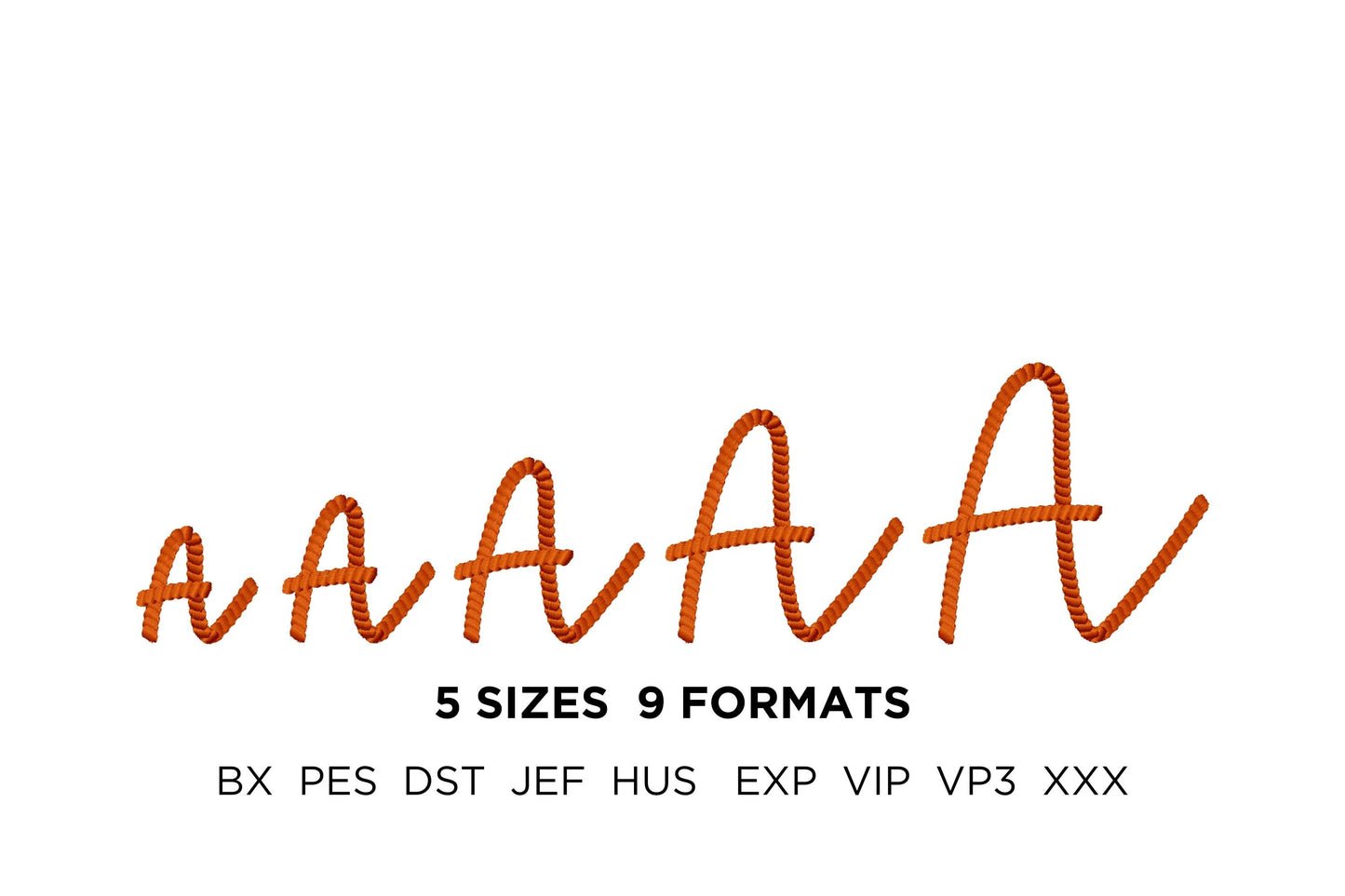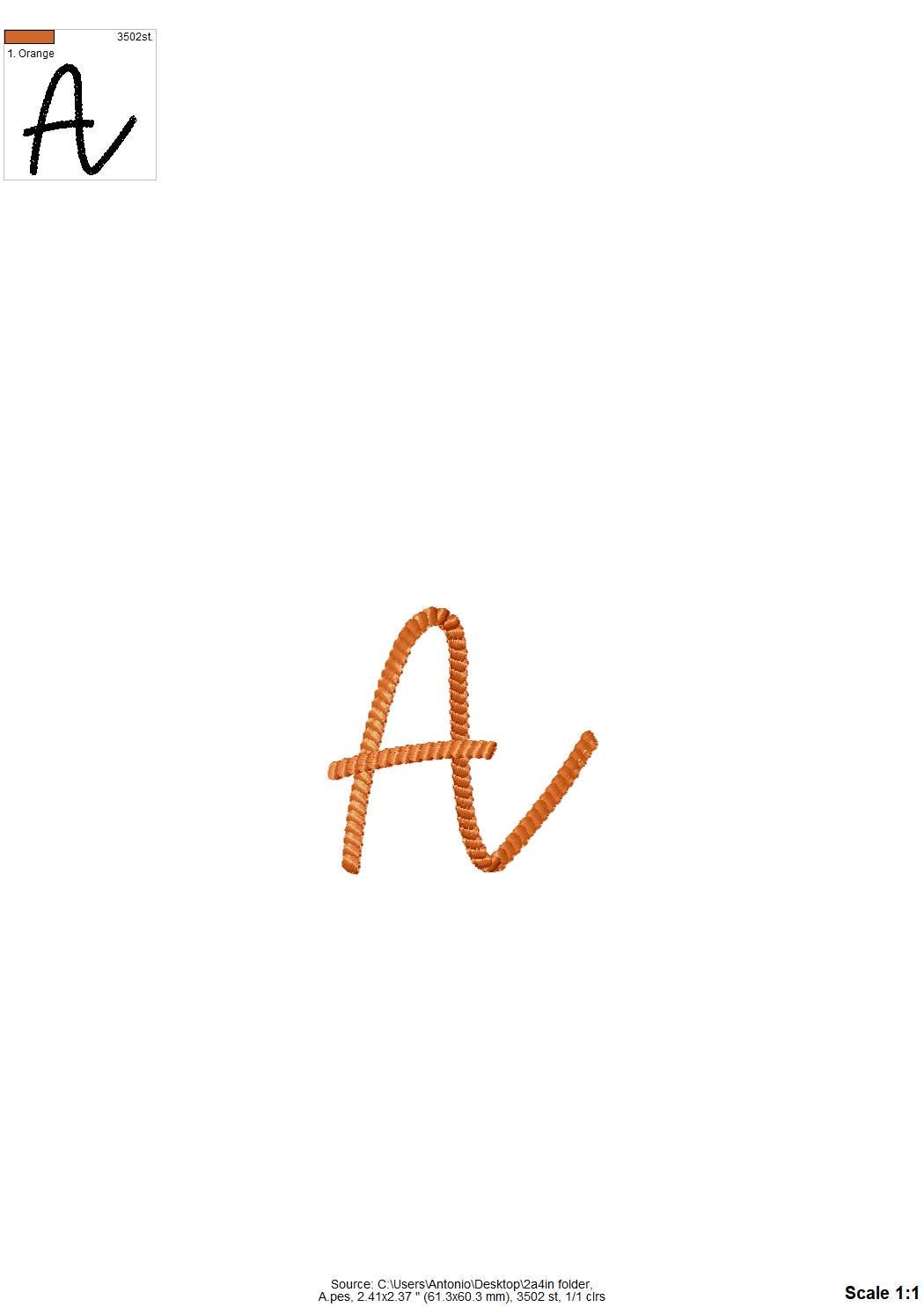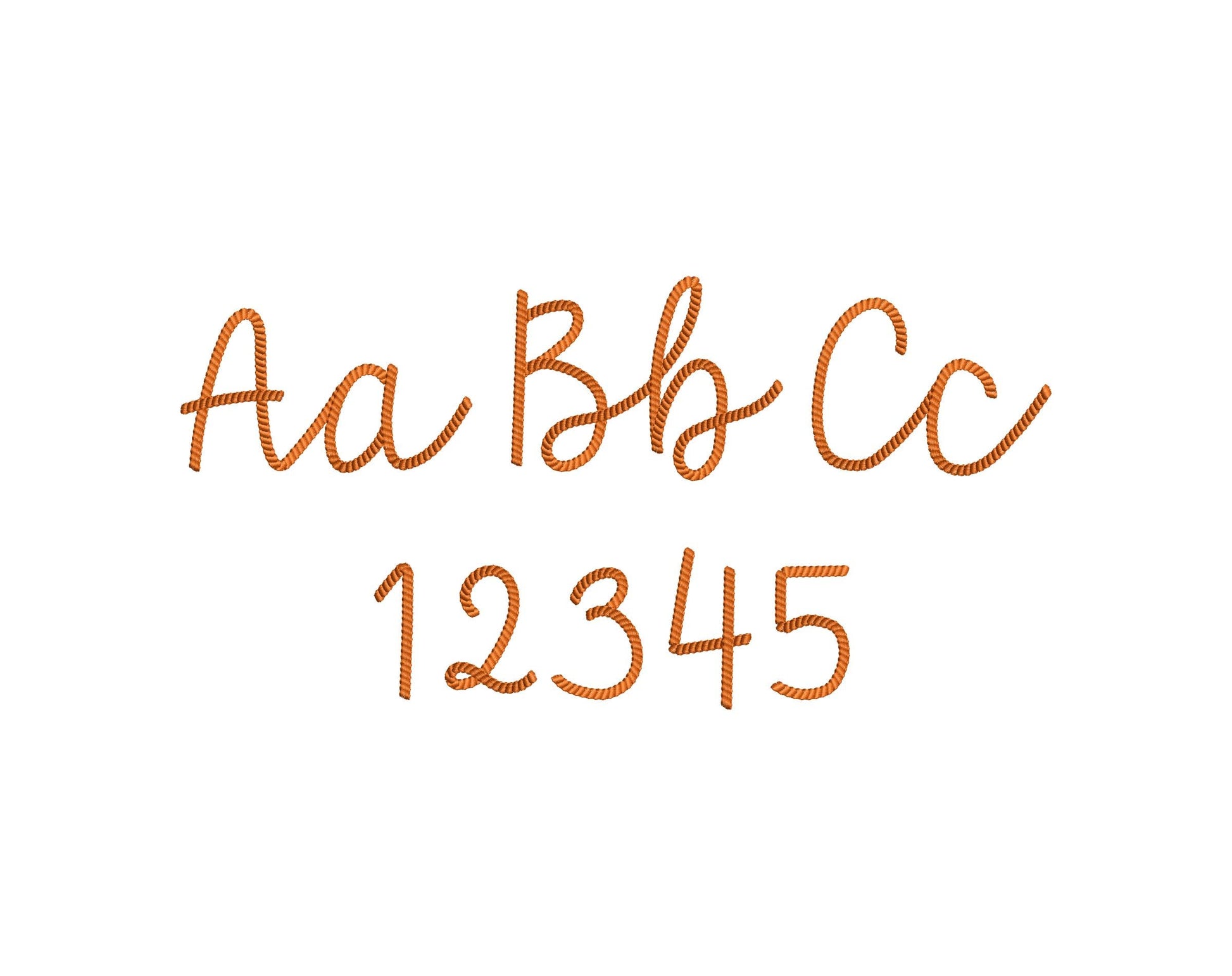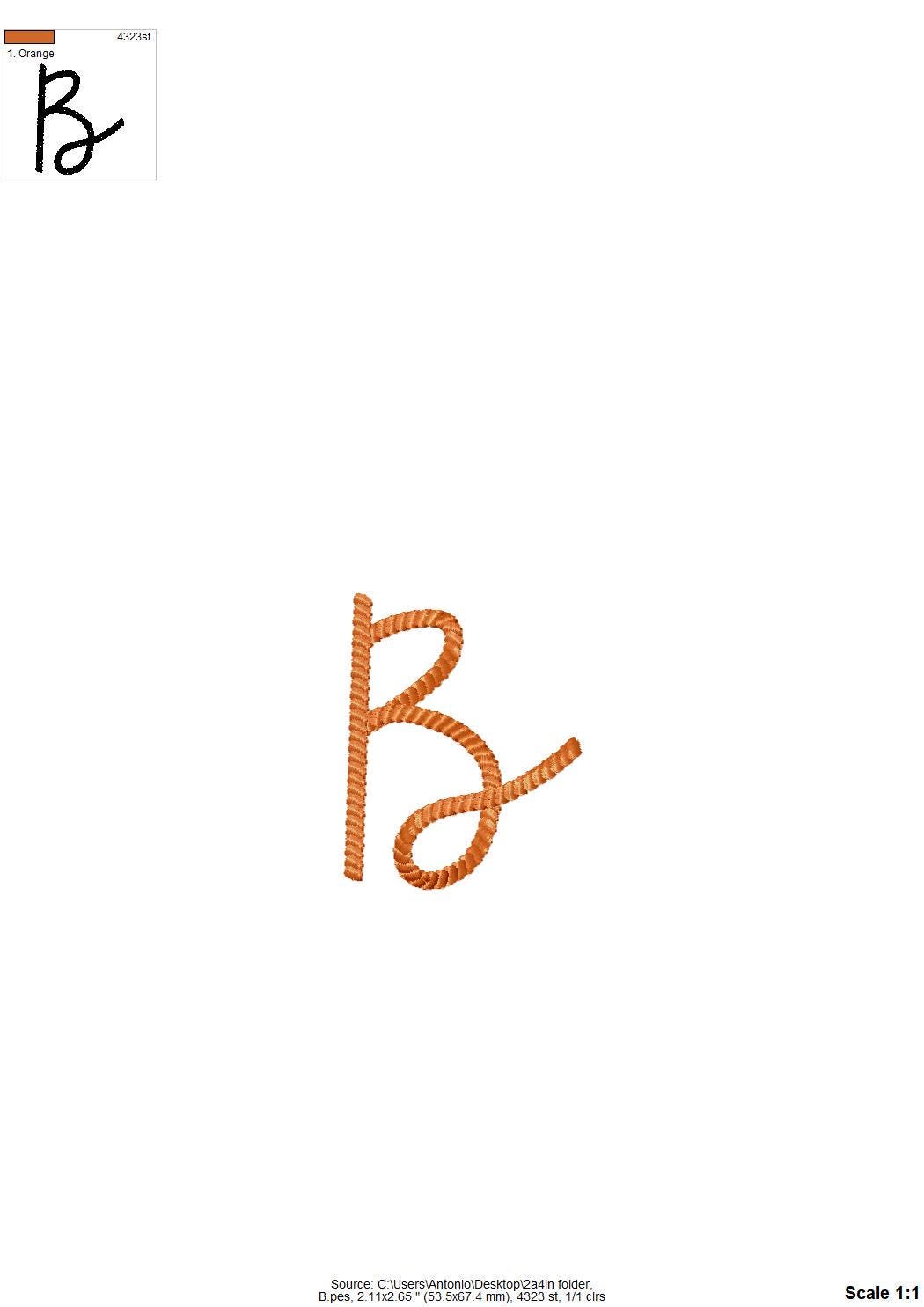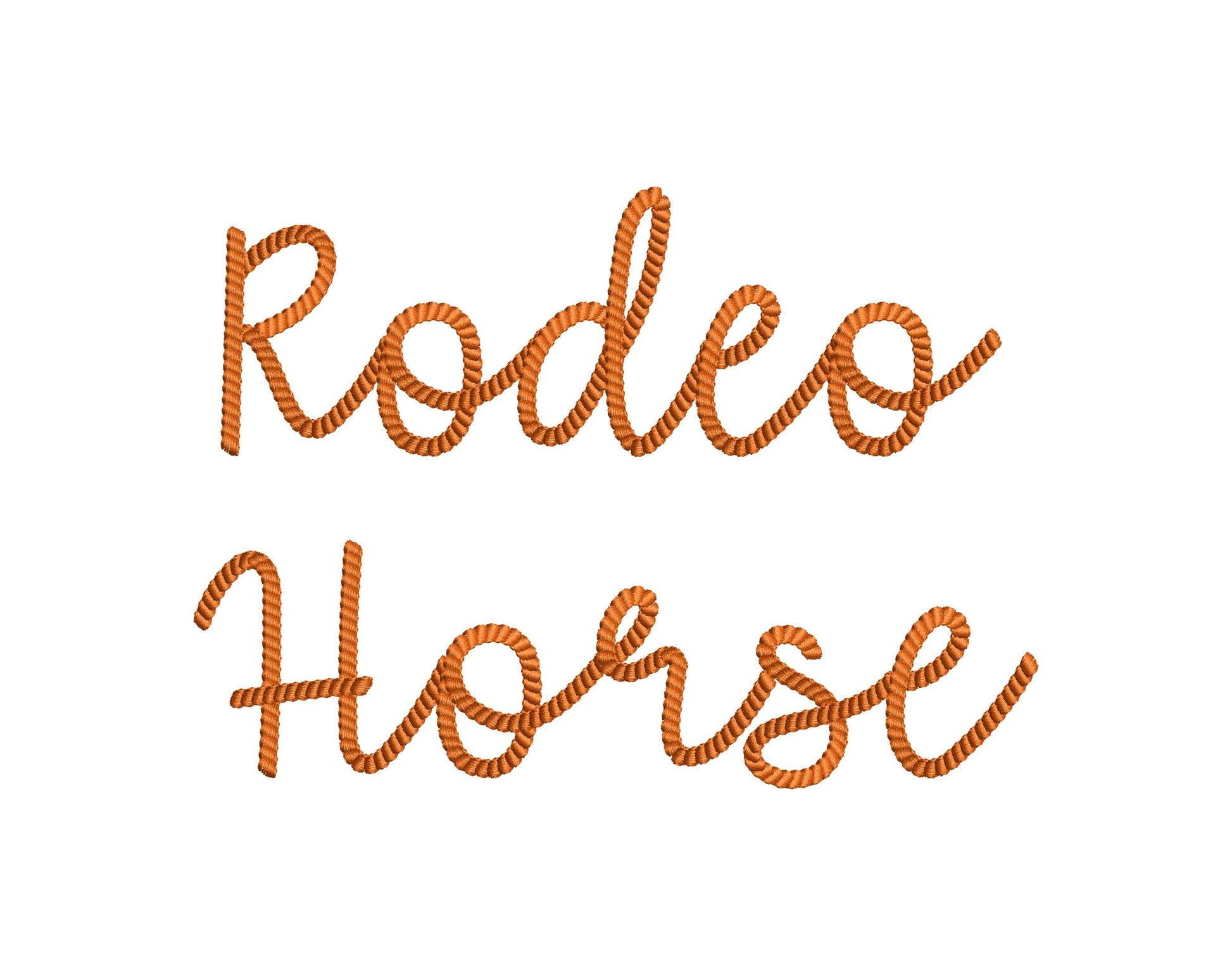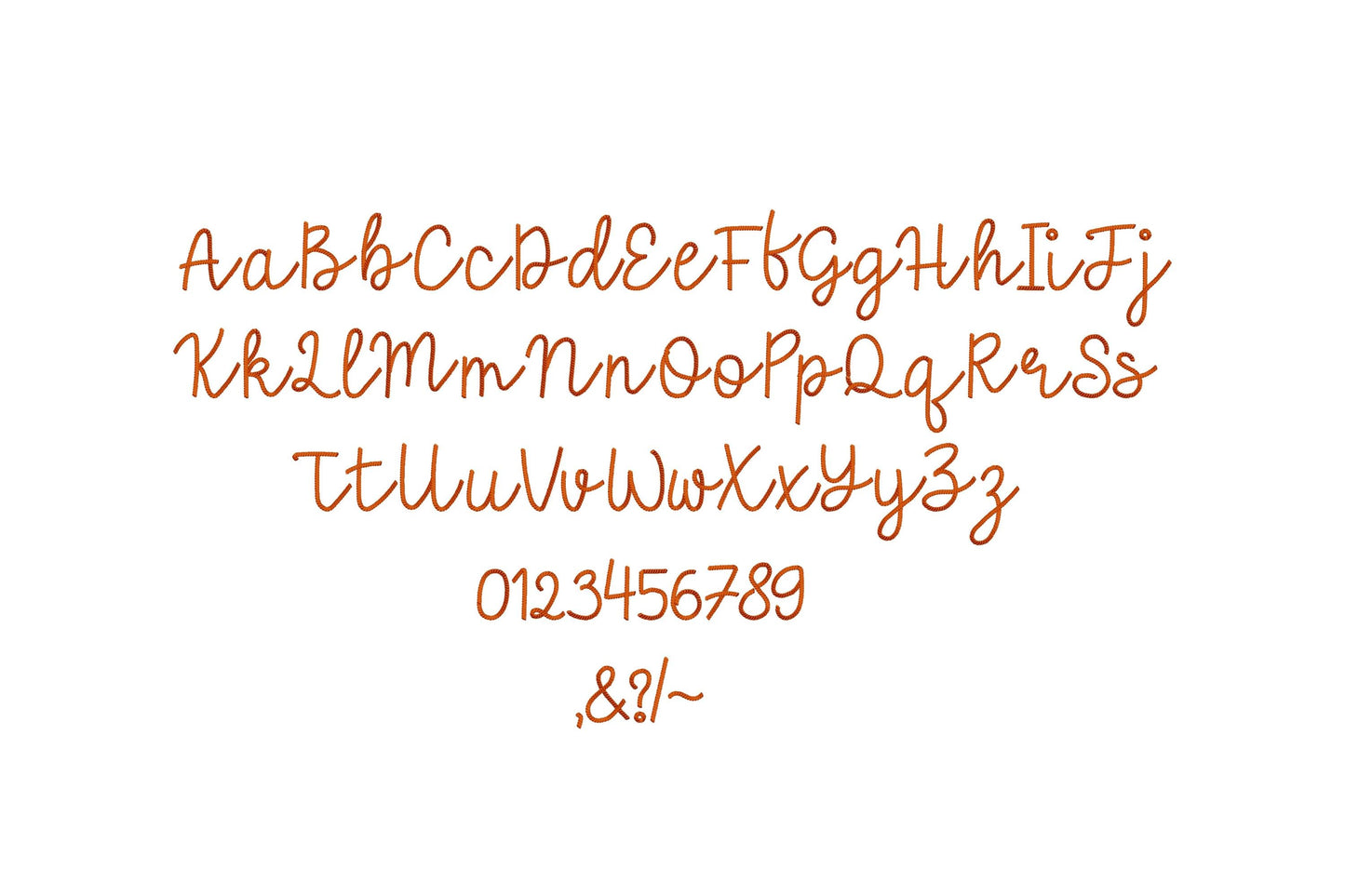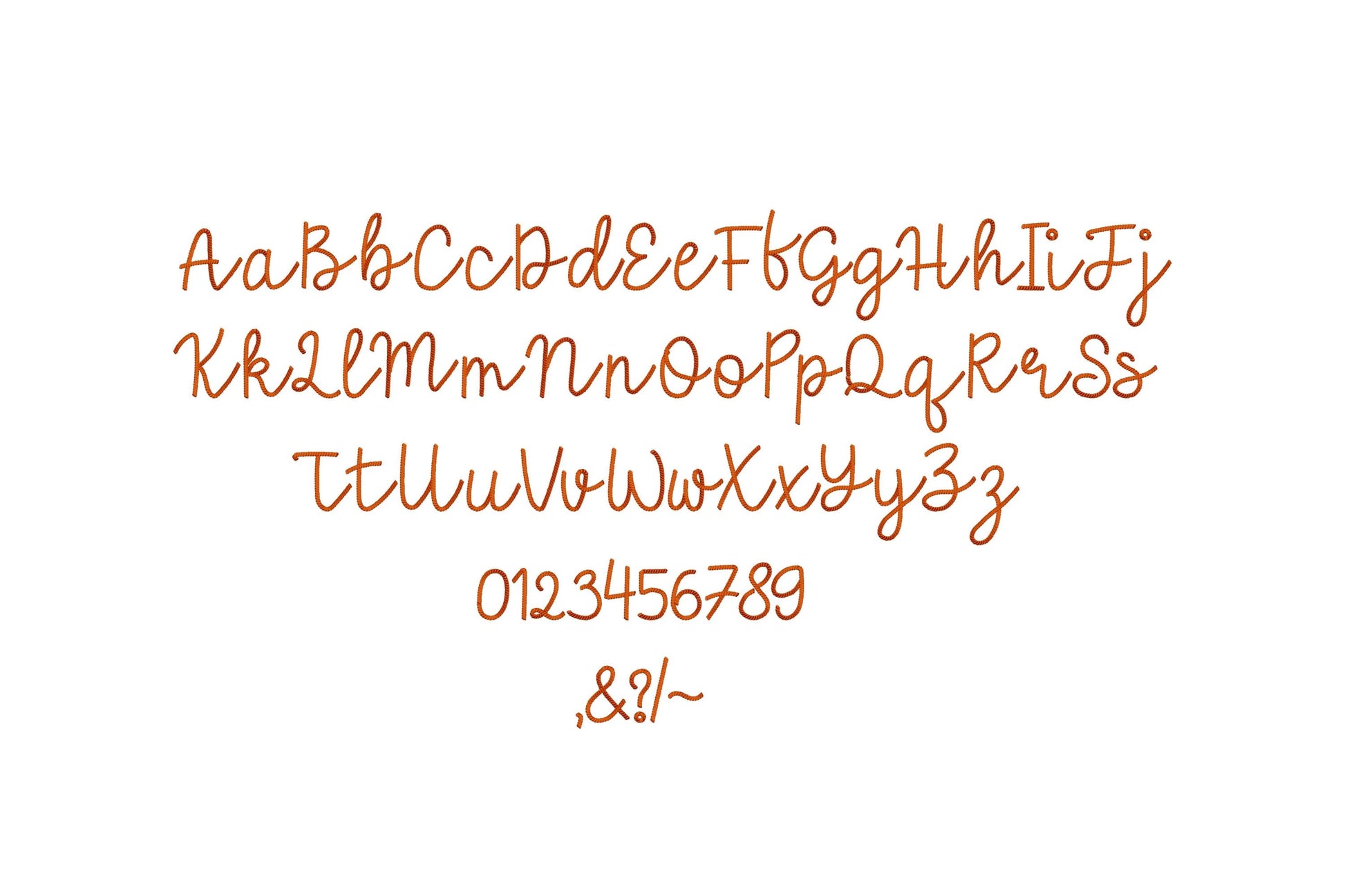
Or click to open the linkA handwritten cowboy script stitched with a rope-like stitch. Fun for western and rodeo shirts, hats, bags and kids' names.
Uppercase and lowercase letters, numbers 0 to 9 and punctuation. Five sizes: 1.2, 1.5, 2, 2.4 and 3 inches. The rope stitch gives every letter a twisted lasso look.